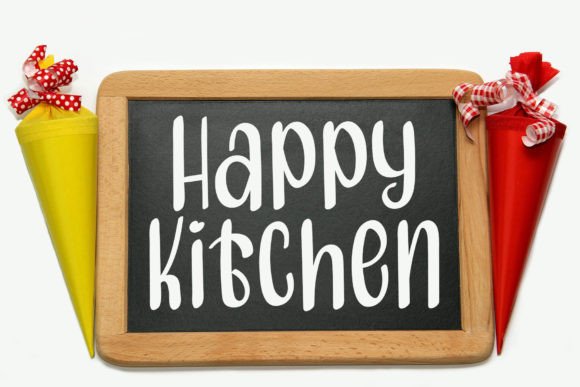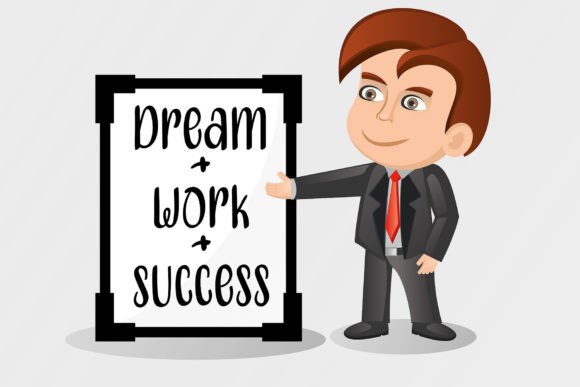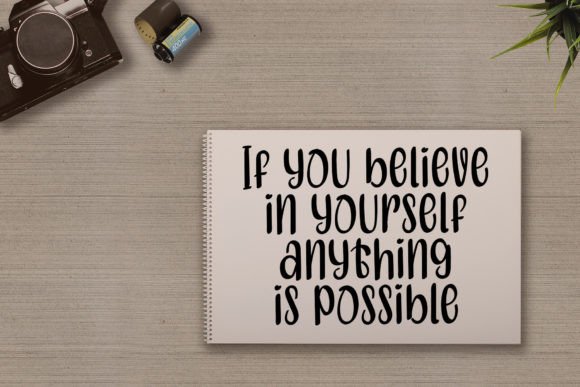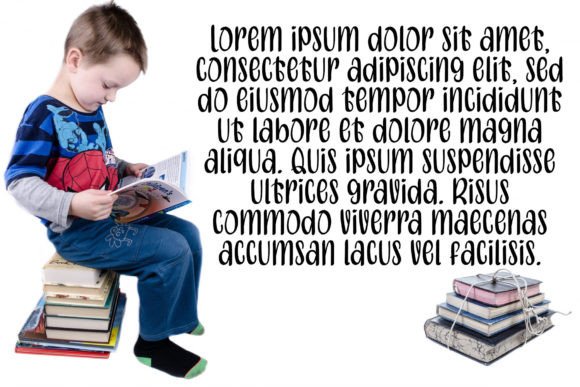
Crafter Font
About Crafter Font
Crafter Font is a beautiful handwritten script designed with elegance and precision. Featuring a varied baseline and carefully crafted strokes, this typeface adds sophistication to any project. Because of its versatile style, Crafter Font is perfect for wedding invitations, greeting cards, billboards, logos, business cards, and branding.
A Handwritten Typeface with Elegance and Balance
Handwritten fonts bring personality to design, and Crafter Font enhances this with its refined structure. Its smooth rhythm ensures readability, while its natural hand-drawn feel adds authenticity. Moreover, its carefully balanced strokes adapt seamlessly to both modern and traditional layouts. As a result, this handwritten script is a reliable option for creatives who want originality with elegance.
For personal stationery and event projects, Crafter Font is an excellent choice. For example, it can transform a wedding invitation into a cherished keepsake. In addition, it works beautifully for thank-you notes, seasonal cards, and birthday greetings. Because of its elegant charm, every project feels heartfelt, stylish, and memorable.
A Script Typeface for Logos and Branding
Brands and professionals looking to stand out can rely on Crafter Font. It brings uniqueness and sophistication to logos, product labels, and packaging. Furthermore, on social media, it enhances posts, stories, and promotional graphics with creativity. When paired with minimalist sans serif fonts, Crafter Font achieves balance between professionalism and individuality.
Another strength of Crafter Font is its adaptability across mediums. In print, it shines on posters, brochures, magazines, and business cards. Digitally, it elevates websites, blogs, and presentations with a natural handwritten flair. Since it remains legible across both small and large sizes, this script typeface is practical for a wide variety of creative applications.